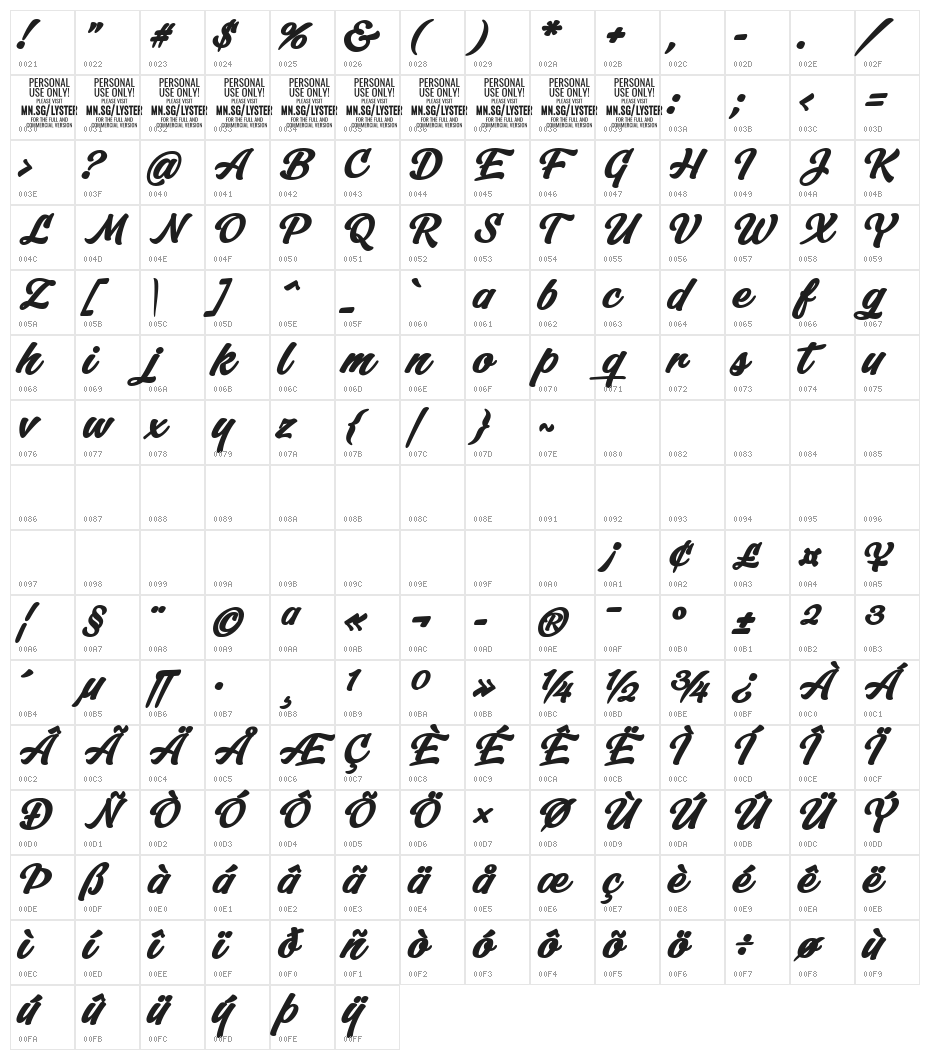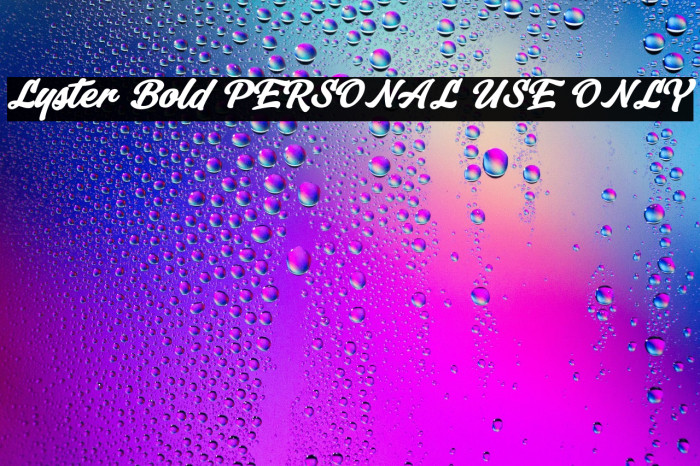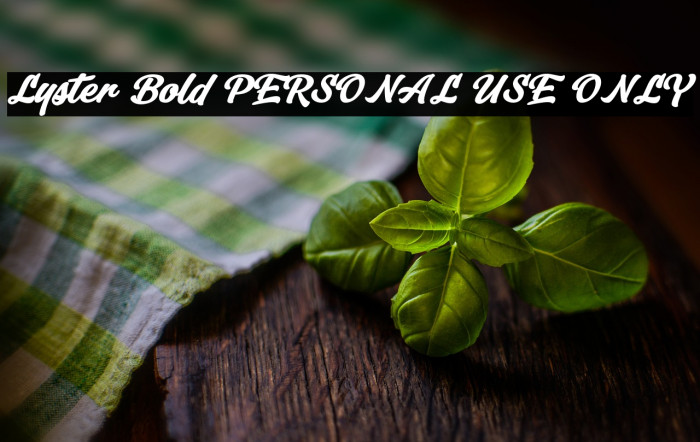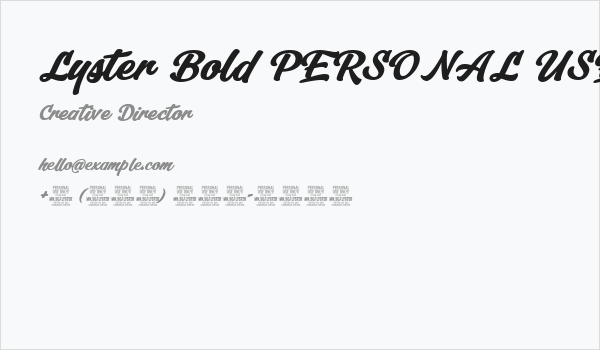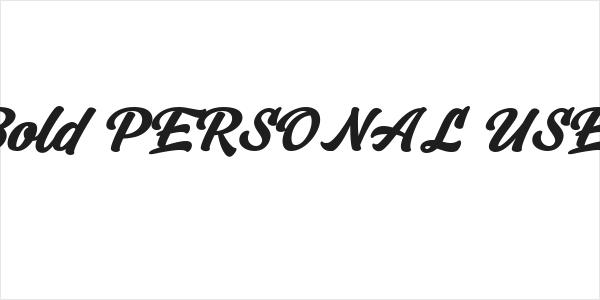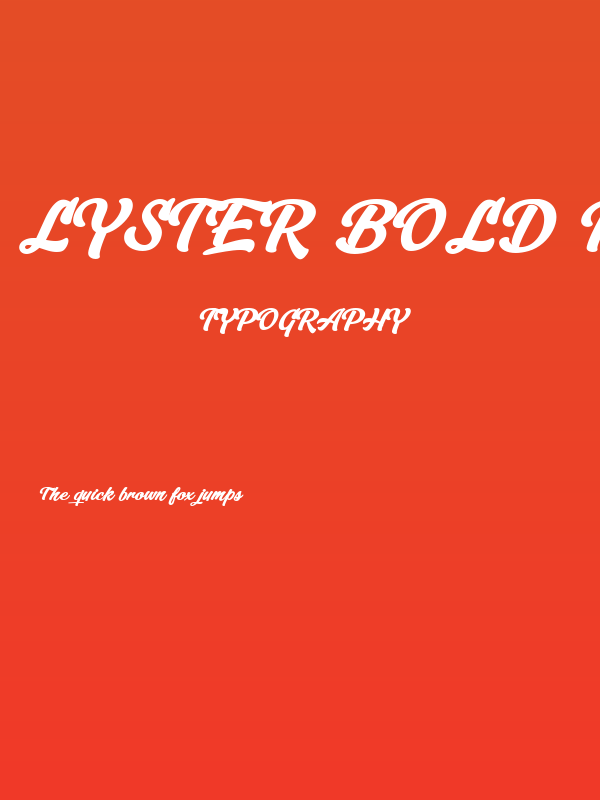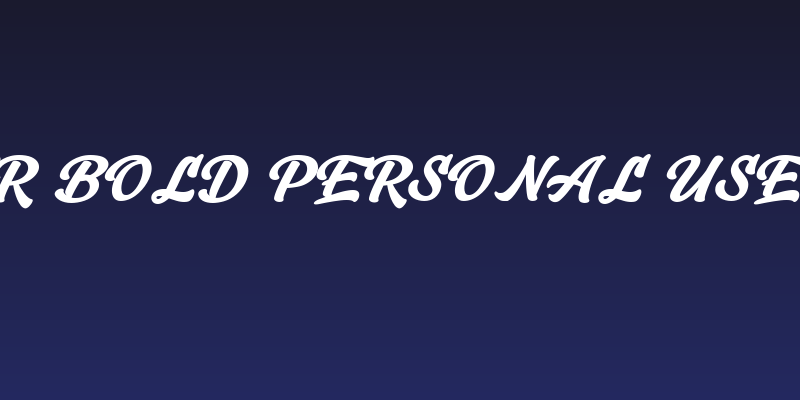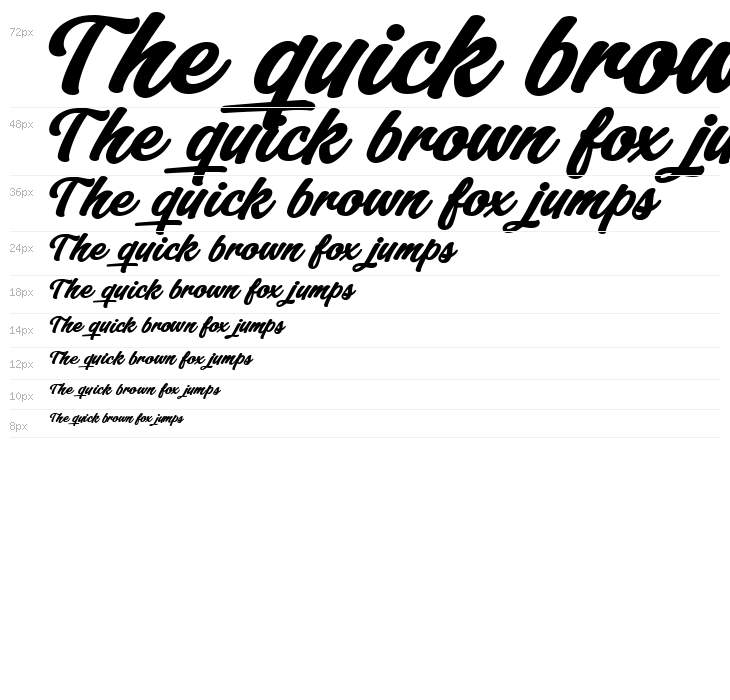
Lyster Bold PERSONAL USE ONLY Font
Lyster Bold PERSONAL USE ONLY Description
This font features a bold and expressive script style with a strong, flowing cursive design. The characters are interconnected, creating a seamless and dynamic appearance. The uppercase letters are elegantly crafted with sweeping curves, while the lowercase letters maintain a consistent flow, enhancing readability. The numbers and special characters are designed to match the overall aesthetic, ensuring a cohesive look across all text elements. This font exudes a sense of elegance and sophistication, making it suitable for a variety of creative applications.
| Proposed Projects | Ideal for branding, invitations, greeting cards, and decorative headlines. |